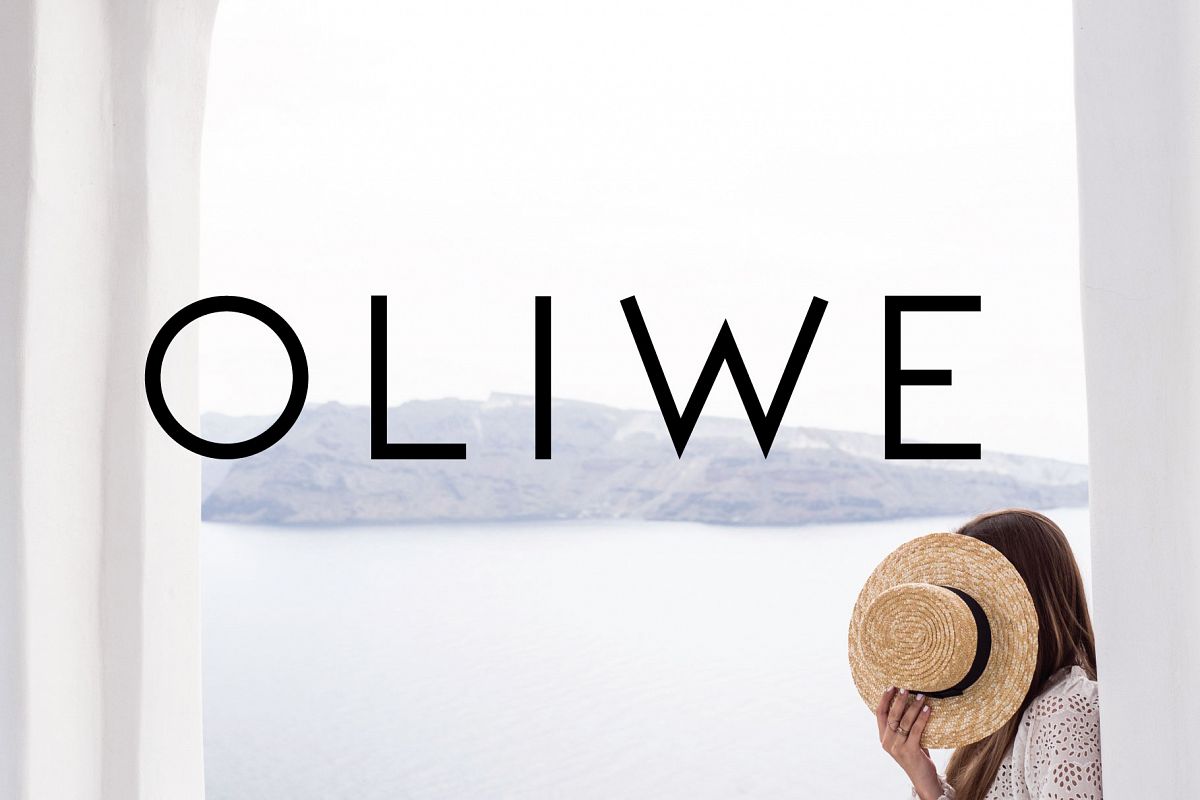
Oliwe
Oliwe-Regular
Oliwe is an elegant, simple yet beautiful sans serif. Perfect for longer texts, blogs, boho wedding invitations and much more.
With a full suite of uppercase and alternative uppercase (works with lowercase) letters, Oliwe can be used in many style contexts and design environments. Perfect for poster or t-shirt design, magazines, websites, logos, boho wedding invitations and much more! Vary the lower- and uppercase letters to achieve a new, unique design every time you use it!
? Oliwe Sans Serif font with a whole set of uppercase & lowercase alternates (English characters only)